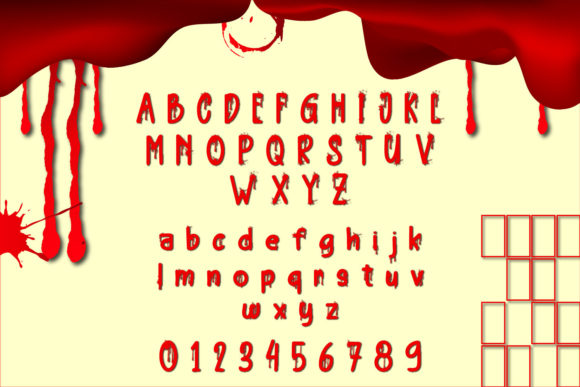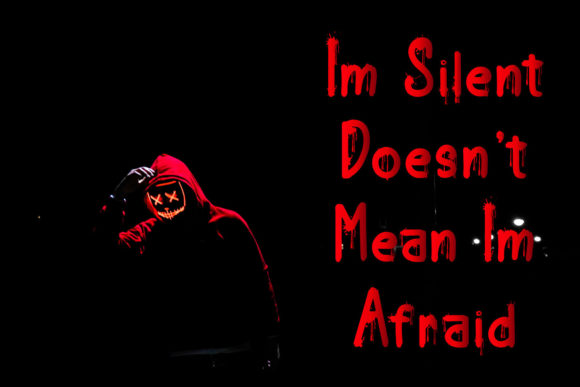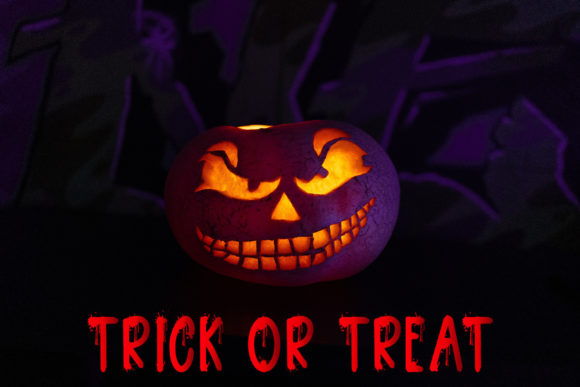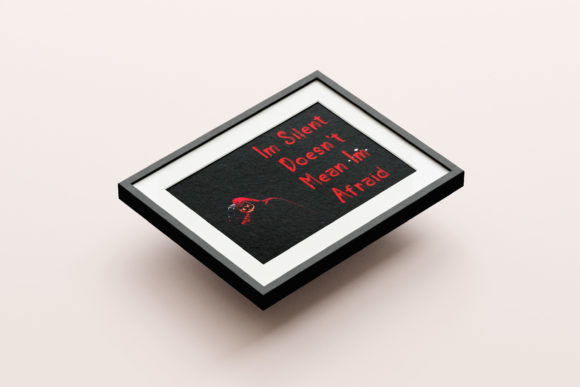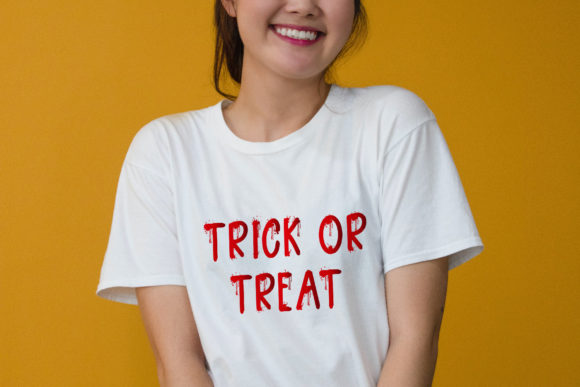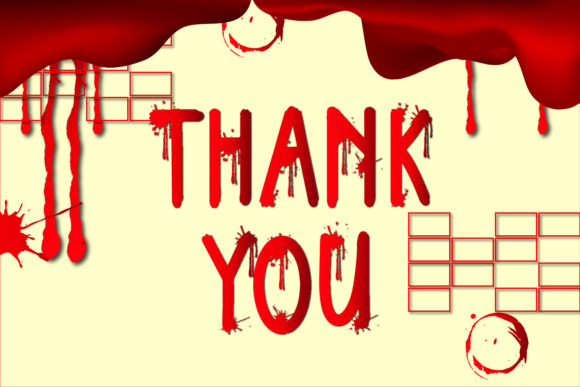
Blood Boo Font: The Spookiest Display Font for Your Halloween Projects
Are you looking for a font that will add a spooky touch to your Halloween-themed projects? Look no further than the Blood Boo Font! This eerie display font is perfect for designers and crafters who want to create eye-catching and haunting designs. In this article, we’ll dive into the features and benefits of the Blood Boo Font and show you how to use it to elevate your Halloween projects.
What is Blood Boo Font?
Blood Boo Font is a spooky display font designed to add a touch of horror and eeriness to your designs. With its bold and distressed letters, this font is perfect for creating eye-catching headlines, titles, and captions for your Halloween-themed projects. Whether you’re designing invitations, posters, or social media graphics, the Blood Boo Font is sure to make your designs stand out.
Features of Blood Boo Font
- Spooky and Eerie Design: The Blood Boo Font features a bold and distressed design that’s perfect for creating spooky and eerie effects.
- Display Font: This font is designed specifically for display purposes, making it perfect for headlines, titles, and captions.
- Halloween-themed: The Blood Boo Font is specifically designed for Halloween-themed projects, making it a must-have for designers and crafters who want to create spooky and festive designs.
- Easily Customizable: The Blood Boo Font is easily customizable, allowing you to adjust the font size, color, and style to fit your design needs.
Benefits of Using Blood Boo Font
So why should you use the Blood Boo Font for your Halloween projects? Here are just a few benefits:
- Adds a Spooky Touch: The Blood Boo Font adds a spooky and eerie touch to your designs, making them perfect for Halloween-themed projects.
- Eye-Catching: The bold and distressed design of the Blood Boo Font makes it eye-catching and attention-grabbing, ensuring that your designs stand out.
- Versatile: The Blood Boo Font can be used for a variety of design projects, from invitations and posters to social media graphics and more.
- Easy to Use: The Blood Boo Font is easy to use and customize, making it perfect for designers and crafters of all skill levels.
Examples of Blood Boo Font in Use
Here are a few examples of how you can use the Blood Boo Font in your designs:
- Halloween Invitations: Use the Blood Boo Font to create spooky and eye-catching invitations for Halloween parties.
- Posters and Flyers: Use the Blood Boo Font to create bold and attention-grabbing posters and flyers for Halloween events.
- Social Media Graphics: Use the Blood Boo Font to create spooky and engaging social media graphics for Halloween.
The Blood Boo Font is a spooky display font that’s perfect for designers and crafters who want to add a touch of horror and eeriness to their Halloween-themed projects. With its bold and distressed design, this font is sure to make your designs stand out. Whether you’re designing invitations, posters, or social media graphics, the Blood Boo Font is a must-have for creating spooky and eye-catching designs.